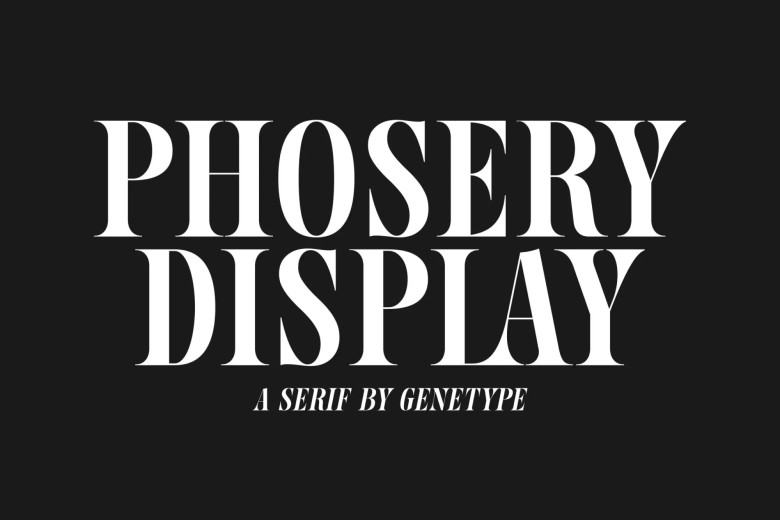
Phosery Display Font
Phosery Display Serif Font: Raise Elegance To New Heights The Phosery Display Serif font is designed to invoke a sense of royal elegance by exuding grace and luxury in every serif, lending elegance to any design project from sophisticated stationery and branding, to elegant stationery projects like Phosery Display serif stationery.
Phosery Display serif will bring new levels of sophistication to any design project you undertake with it – perfect for adding an air of royal grandeur!
Phosery Display Serif Font